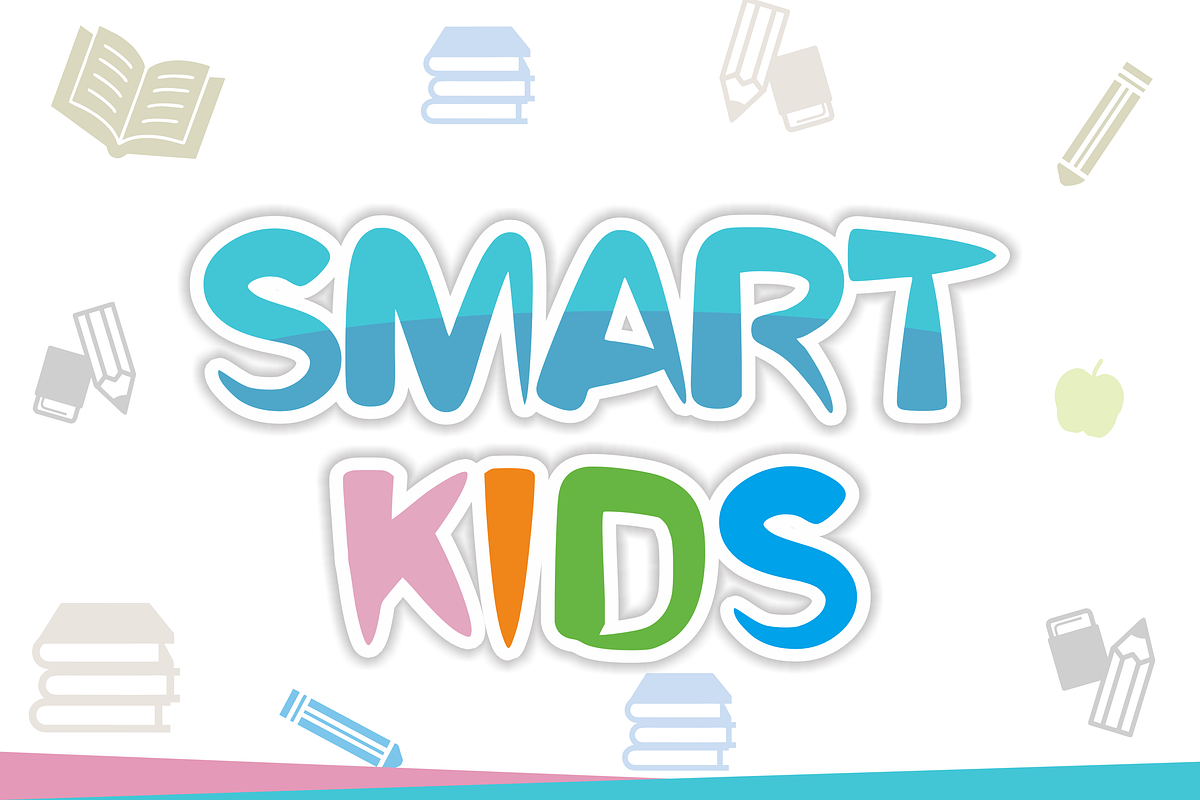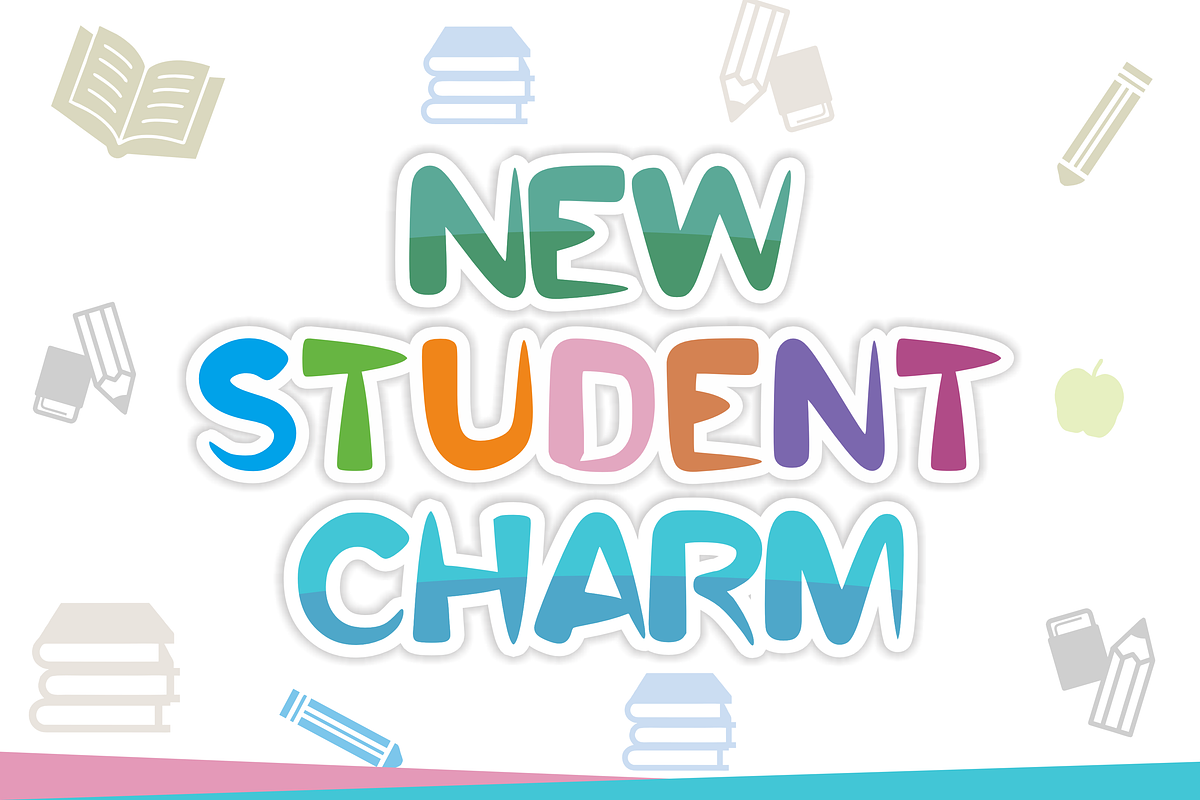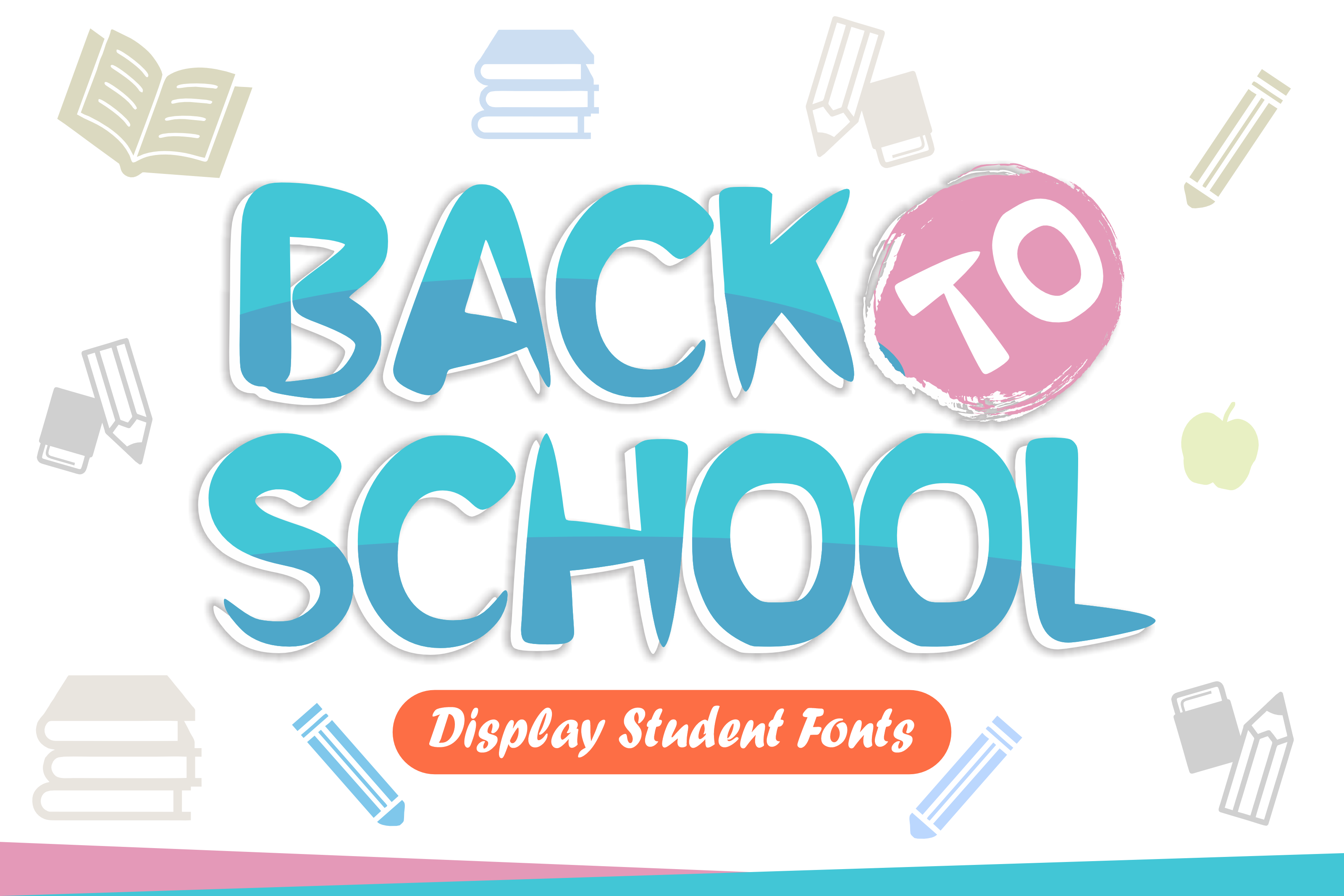
Back To School - Kids Font Types
This is a school font that inspires joy and imagination. More than just a typeface, it’s the perfect companion for any kids’ project that deserves a touch of charm. With its cheerful characters and adorable charm, this font is sure to stand out on a student headline or poster. Whether you’re celebrating a school day or adding a touch of cheer to a party, this is a cheerful font that’s sure to delight, entertain, and captivate.